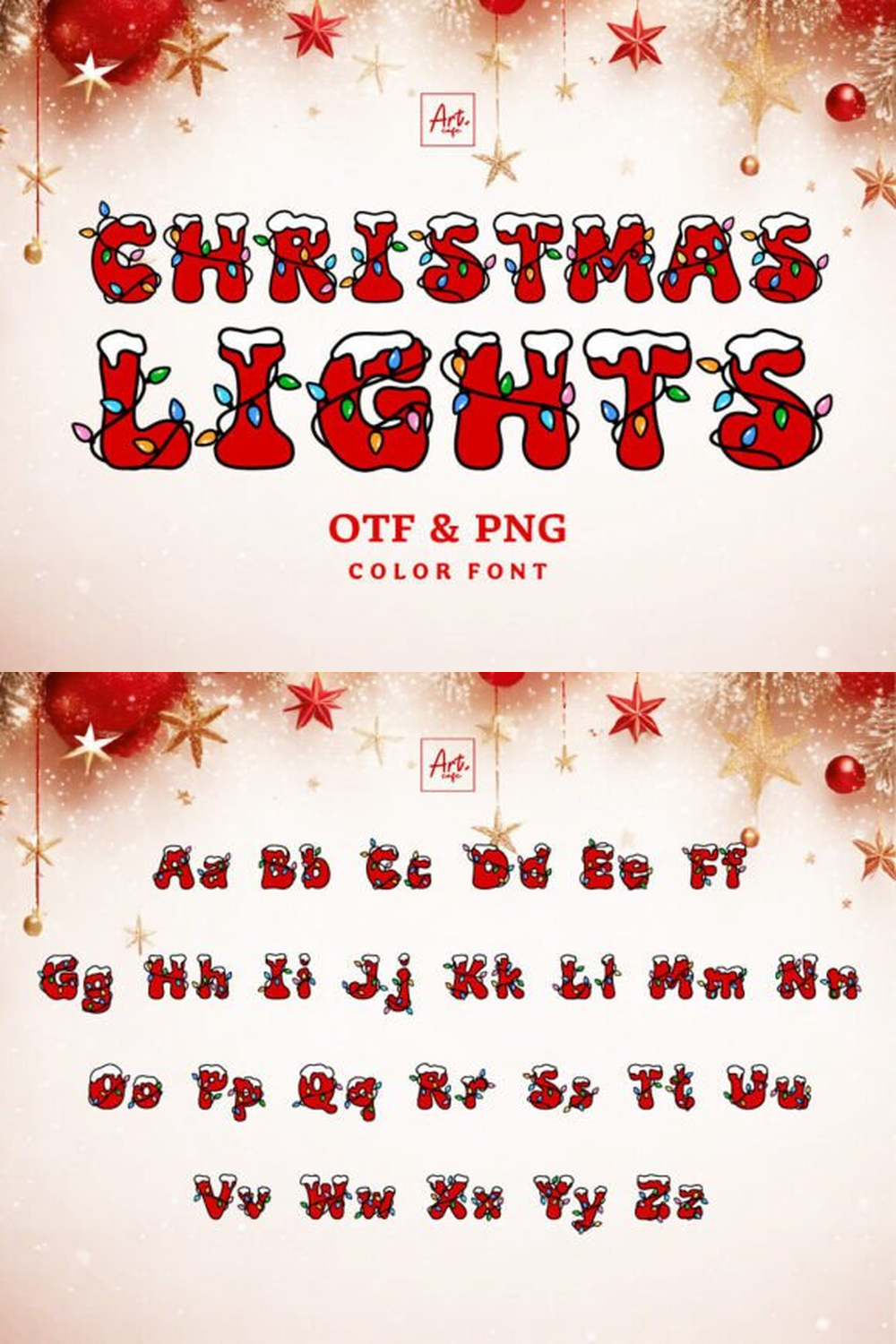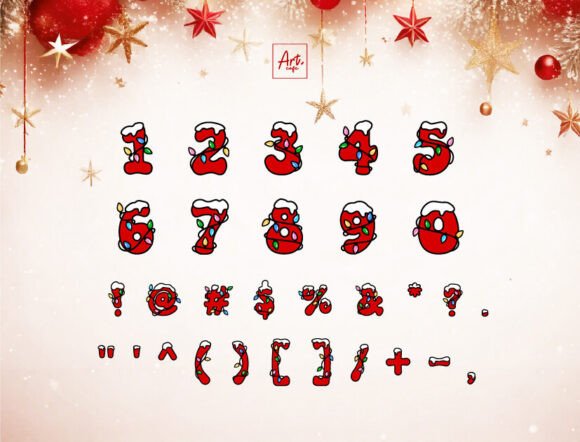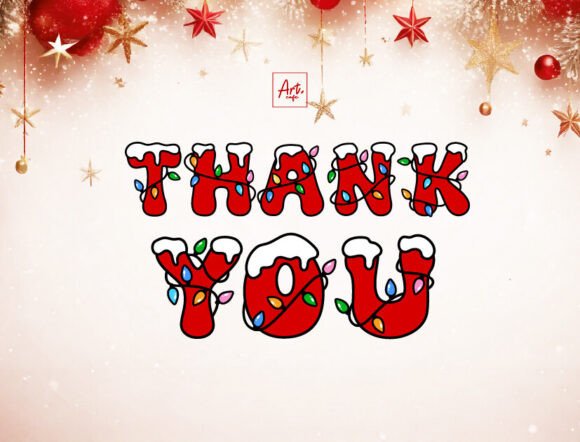
About the Christmas Lights Font
The Christmas Lights Font is here to transform your projects with its distinctive character and style. Welcome the holiday season with the enchanting Christmas Lights! This colour font comes in a charming retro style, beautifully interspersed with playful fairy lights and a sprinkle of snow. The vibrant hue of red and the festive elements make this font perfect for winter or Christmas-themed projects. Not just that, Christmas Lights is also a fun choice for children’s projects. It comes with PNG Files for extended versatility. Experience the joy of design with Christmas Lights, and let your creativity truly shine!